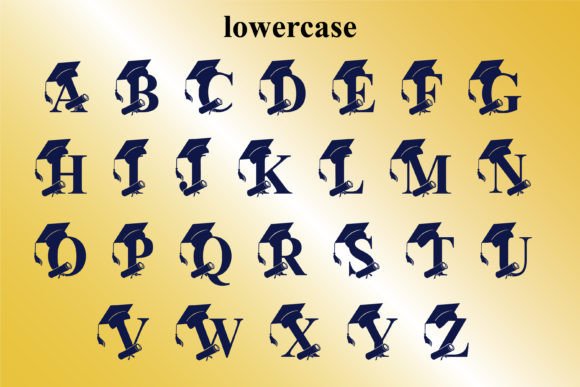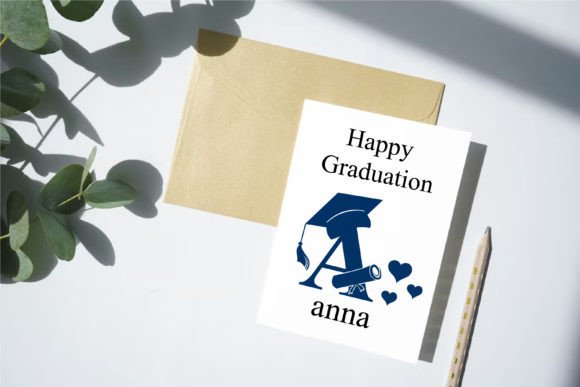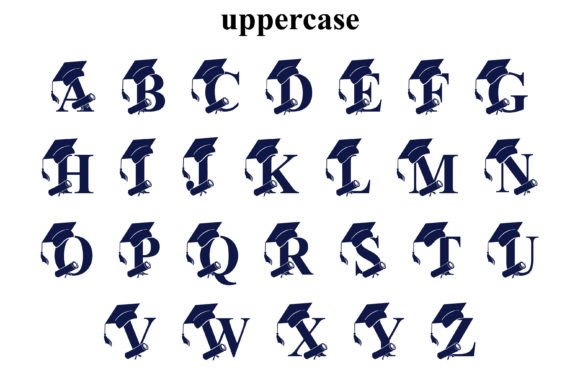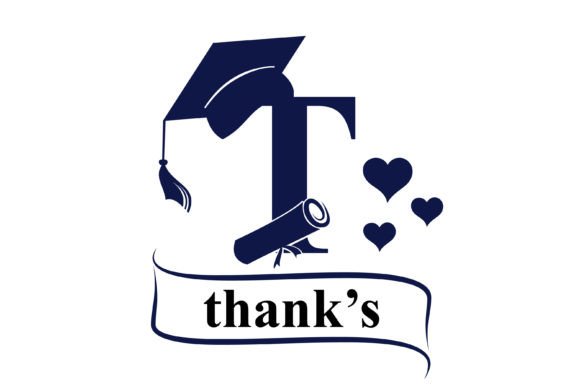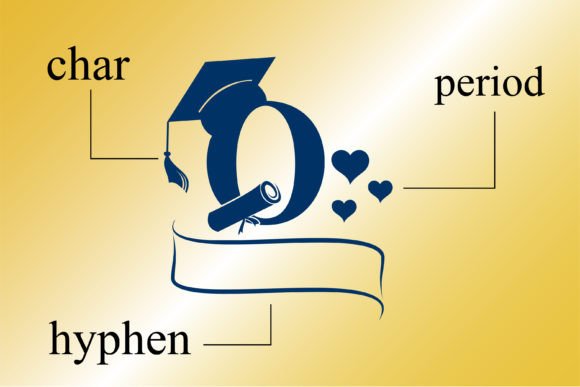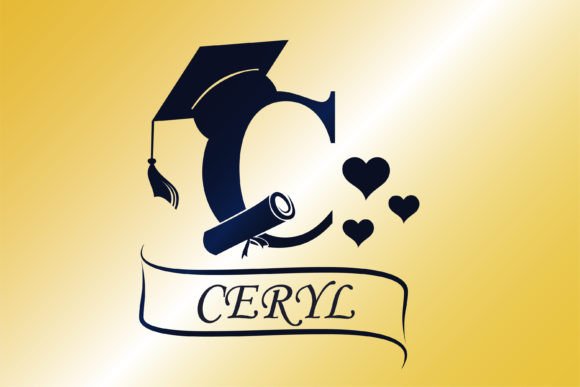
Introducing the Graduation Monogram Font: A Cute and Unique Decorative Font for School-Related Projects
Are you looking for a special font to make your graduation or school-related projects stand out? Look no further! The Graduation Monogram Font is a cute and unique decorative font that’s perfect for adding a personal touch to your designs. In this article, we’ll explore the features and benefits of this font, and show you how to use it to create stunning projects.
What is the Graduation Monogram Font?
The Graduation Monogram Font is a decorative font designed specifically for graduation or school-related projects. This font is characterized by its playful and elegant design, making it perfect for creating custom congratulatory cards, t-shirts, tote bags, mugs, and more.
Key Features of the Graduation Monogram Font
- Cute and Unique Design: The Graduation Monogram Font features a one-of-a-kind design that’s sure to make your projects stand out.
- Playful and Elegant: This font strikes the perfect balance between playfulness and elegance, making it suitable for a wide range of projects.
- Highly Versatile: The Graduation Monogram Font can be used on various products, such as congratulations cards, t-shirts, tote bags, mugs, and more.
Benefits of Using the Graduation Monogram Font
So, why choose the Graduation Monogram Font for your projects? Here are just a few benefits:
- Add a Personal Touch: With the Graduation Monogram Font, you can add a personal touch to your projects and make them more meaningful.
- Stand Out from the Crowd: This font’s unique design ensures that your projects will stand out from the crowd and grab attention.
- Professional Results: With this font, you can achieve professional-looking results, even if you’re a beginner.
Ideas for Using the Graduation Monogram Font
The Graduation Monogram Font is incredibly versatile, and can be used on a wide range of projects. Here are some ideas to get you started:
- Congratulations Cards: Create custom congratulations cards for graduates, with a personal message and a special touch.
- T-Shirts and Apparel: Design custom t-shirts, hoodies, and other apparel for graduates, with a fun and playful message.
- Tote Bags and Mugs: Add a personal touch to tote bags and mugs with the Graduation Monogram Font, making them perfect for gifts or personal use.
- School Projects: Use this font for school projects, such as presentations, posters, and brochures.
Tips for Using the Graduation Monogram Font
To get the most out of the Graduation Monogram Font, here are some tips:
- Experiment with Colors: Try out different colors and combinations to find the perfect look for your project.
- Play with Sizes: Experiment with different font sizes to create visual interest and hierarchy.
- Combine with Other Fonts: Combine the Graduation Monogram Font with other fonts to create a unique and interesting look.